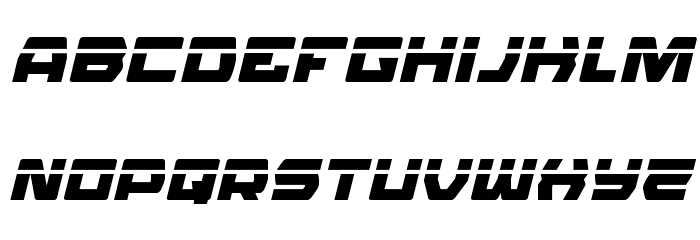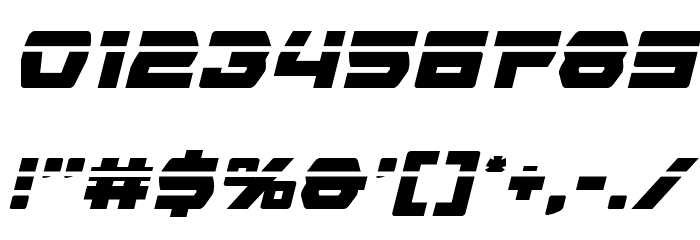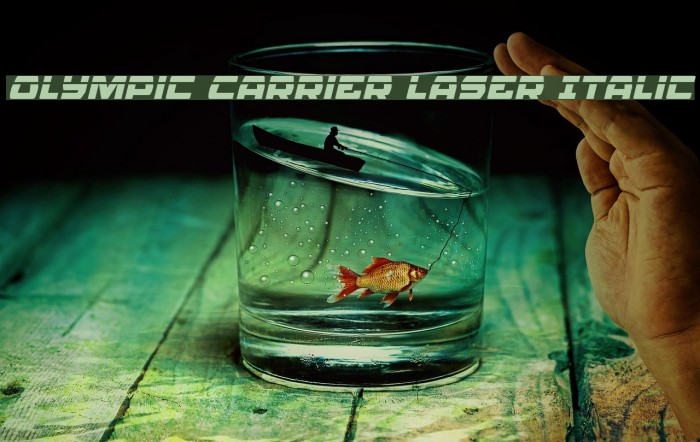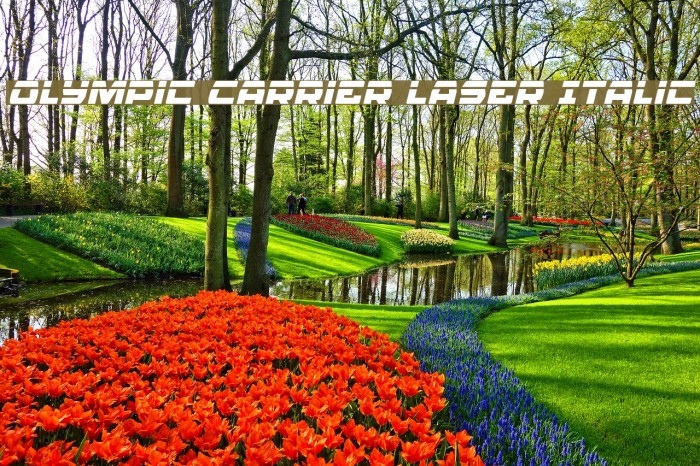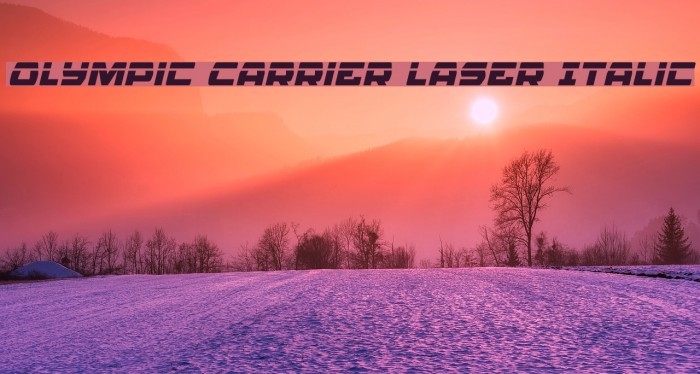
Olympic Carrier Laser Italic Font
This font features a bold, futuristic design with a strong geometric structure. The characters are italicized, giving a sense of motion and speed. The angular cuts and sharp edges contribute to a modern and dynamic appearance. The uppercase and lowercase letters maintain a consistent style, with a slightly condensed form that enhances readability. The numerals and special characters are designed to match the overall aesthetic, ensuring a cohesive look across all text elements. This font is ideal for projects that require a bold and impactful visual statement.
A bold, italicized font with a futuristic and geometric design.
- Proposed Projects: Ideal for sci-fi themed designs, video game titles, tech branding, and dynamic posters.